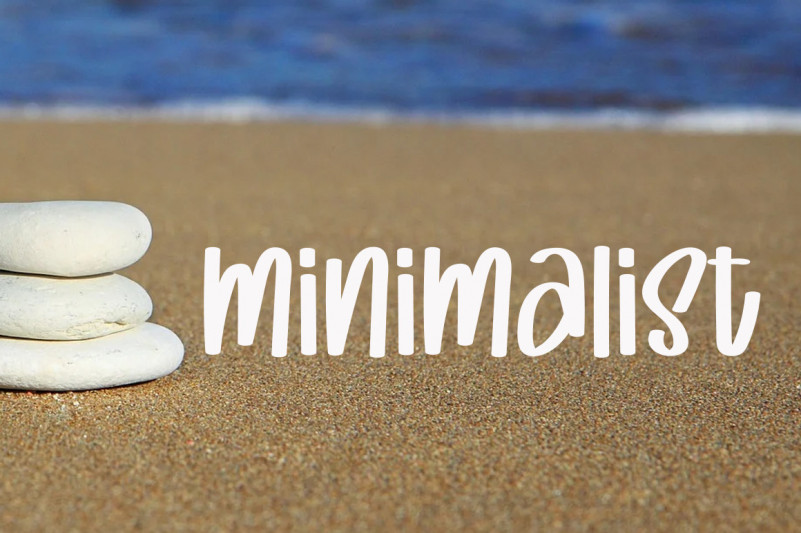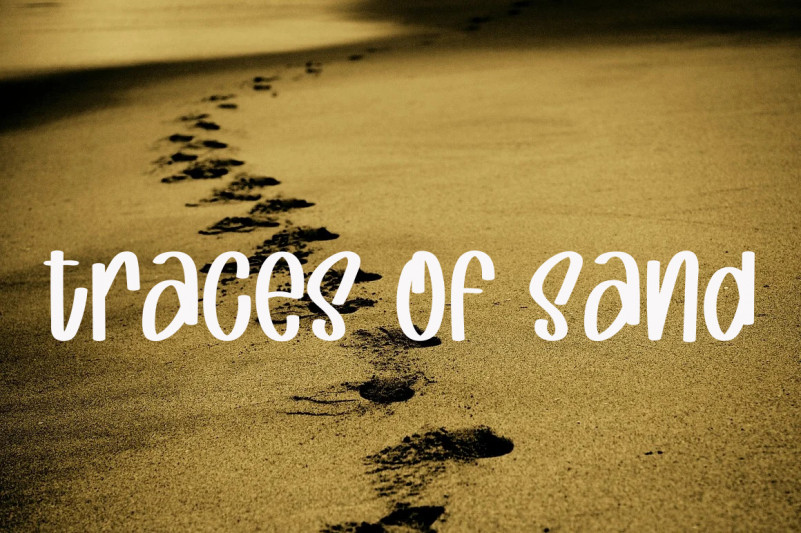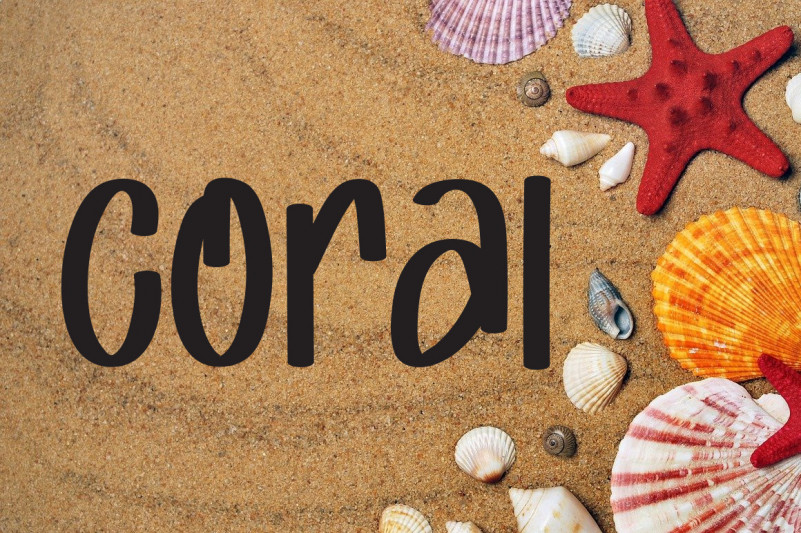
Beach Summer Font is a friendly and adaptable handwritten font. Beautiful and cursive, this font was designed to make your creations seem out of this world! Fall in love with this font and use it in your most creative projects!